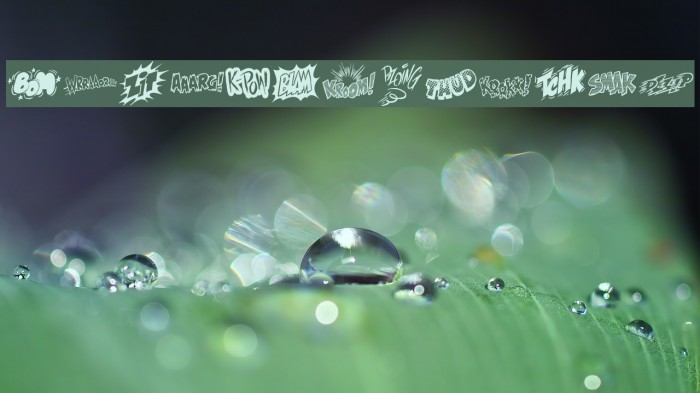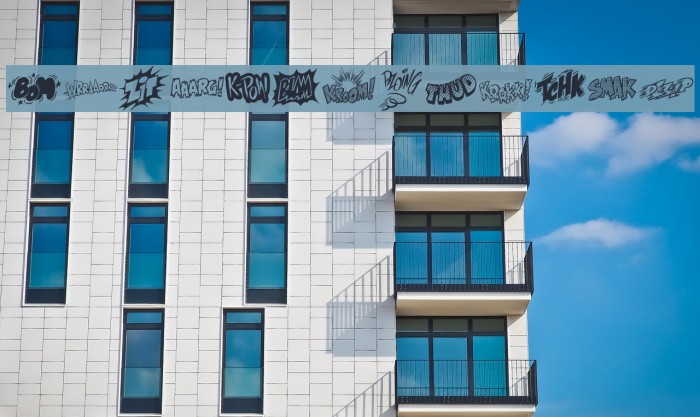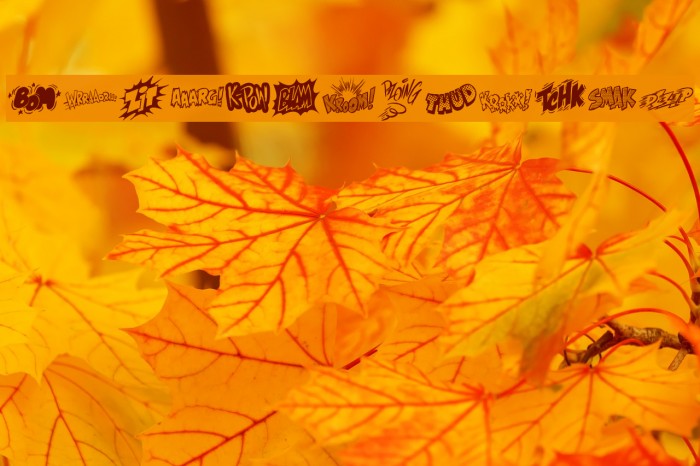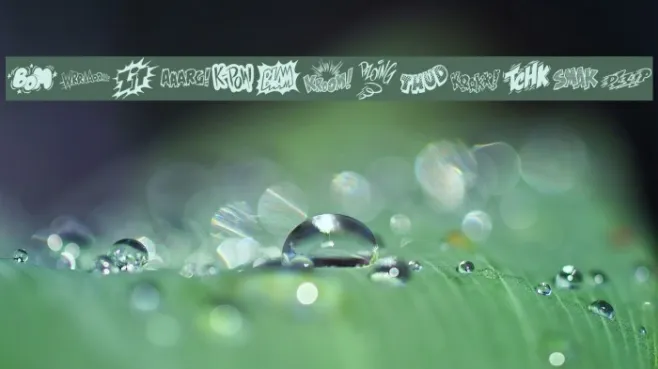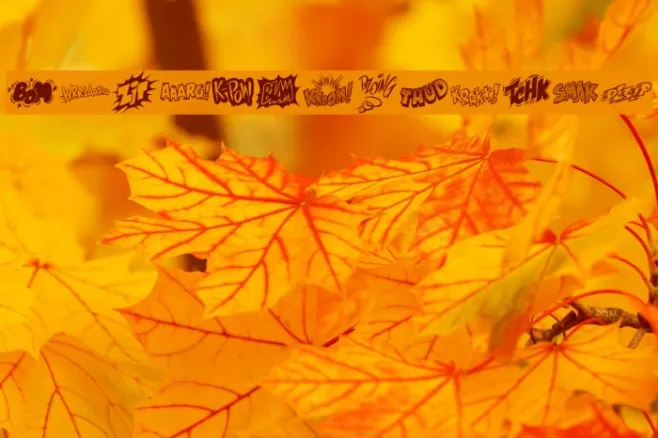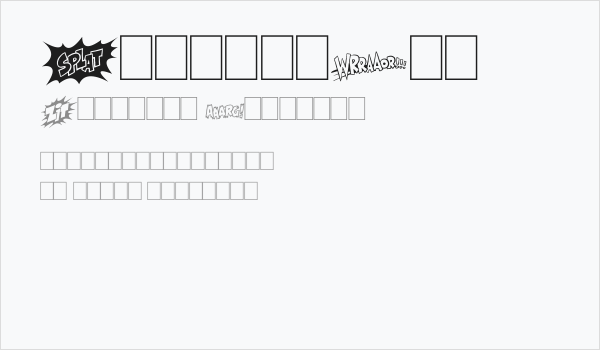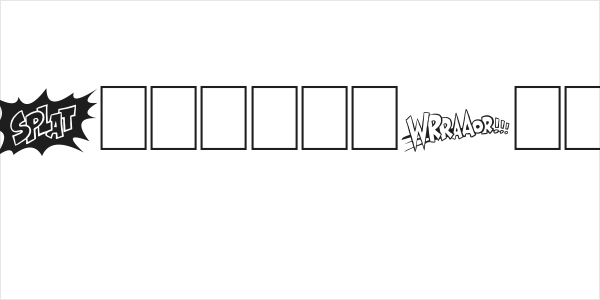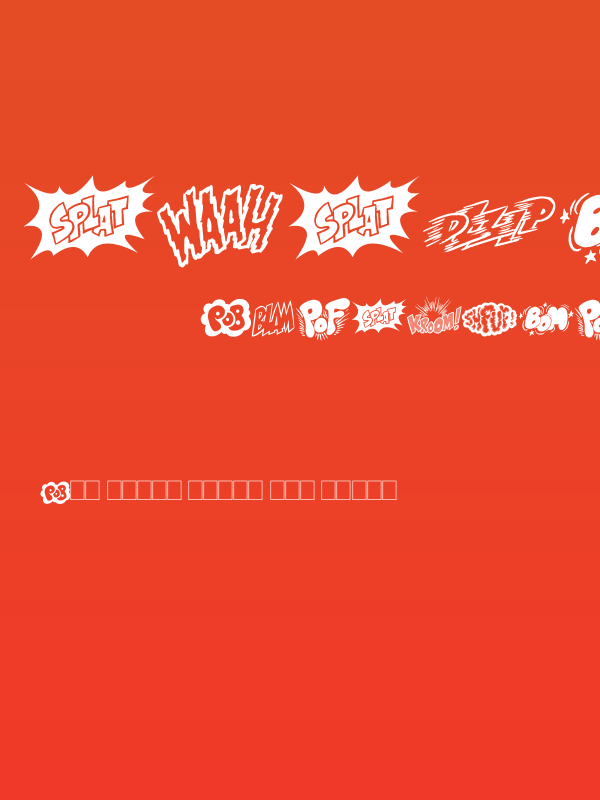
OnomatoBom Font
This font is a vibrant and dynamic display typeface, heavily inspired by comic book sound effects. Each letter is designed with exaggerated, bold strokes and playful, explosive elements that mimic the visual style of classic comic book onomatopoeia. The font captures a sense of action and movement, with each character appearing as if it's bursting off the page. The use of varying line thickness and dramatic shapes gives it a lively and energetic feel, perfect for grabbing attention. It's a decorative font that thrives on its expressive and whimsical nature, making it ideal for creative and playful projects.
A bold, comic-inspired display font full of energy and movement.
- Proposed Projects: Ideal for comic books, graphic novels, children's books, posters, and any project needing a fun, dynamic touch.